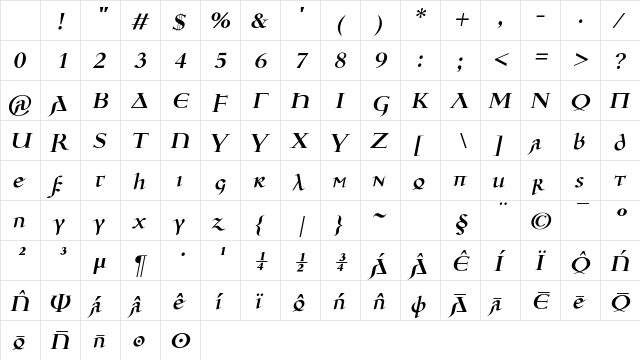
Complete Ulfilas Fett-Kursiv glyph index. Displaying only characters natively supported by Ulfilas Fett-Kursiv font.
Ulfilas is a composed and adaptable typeface that performs quietly and consistently across a wide range of design contexts. The slanted form adds forward momentum and visual energy.
Pro Tip: Use Ulfilas for emphasis, pull quotes, and subheadings where its slanted energy can add rhythm to the layout.